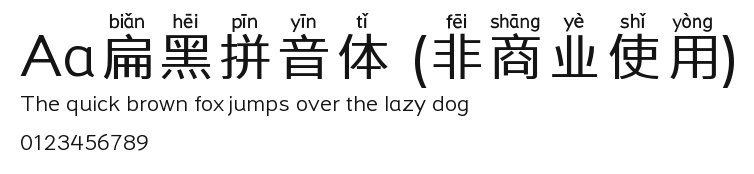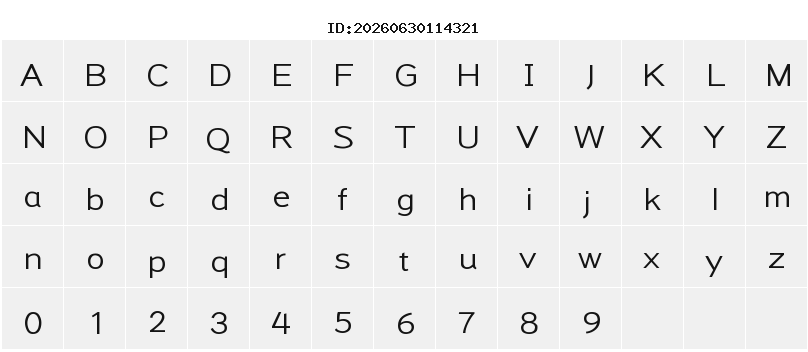
Aa扁黑拼音体 (非商业使用) Preview
• Font Name: Aa扁黑拼音体 (非商业使用)
• Font Style: 常规
• Font ID: 1.000;Aa;AaBianheipinyinti (Non-Commercial Use);2018
• Full Font Name: Aa扁黑拼音体 (非商业使用)
• PostScript Name: AaBianheipinyinti(Non-CommercialUse)
• Character Count: 12063
• Designer: Aa
• Manufacturer: 翰美互通(厦门)科技有限公司
• Description: AaBianheipinyinti (Non-Commercial Use) is a fantastic font with excellent features designed for user interfaces and electronic communications.
About Aa扁黑拼音体 (非商业使用).ttf
Aa扁黑拼音体 (非商业使用).ttf is a modern, elegant sans-serif font designed for ultimate readability and visual harmony. Perfect for branding, headlines, web design, and print materials.